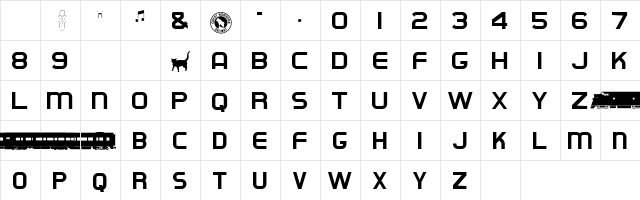
Complete EmpireBuilder Regular glyph index. Displaying only characters natively supported by EmpireBuilder Regular font.
EmpireBuilder is a composed and adaptable typeface that performs quietly and consistently across a wide range of design contexts.